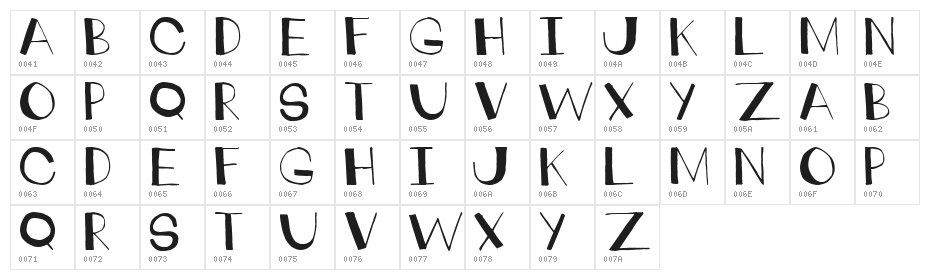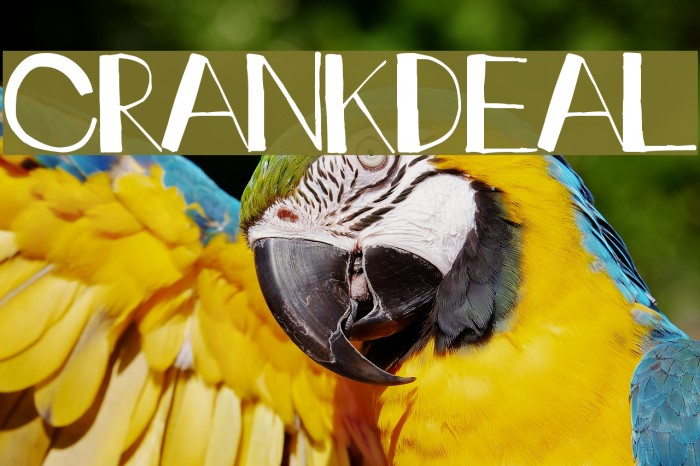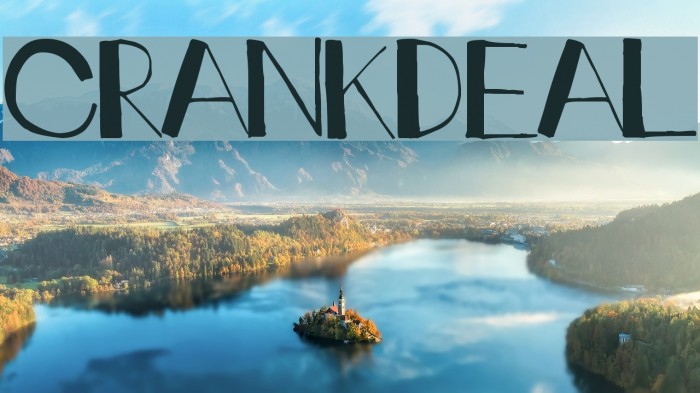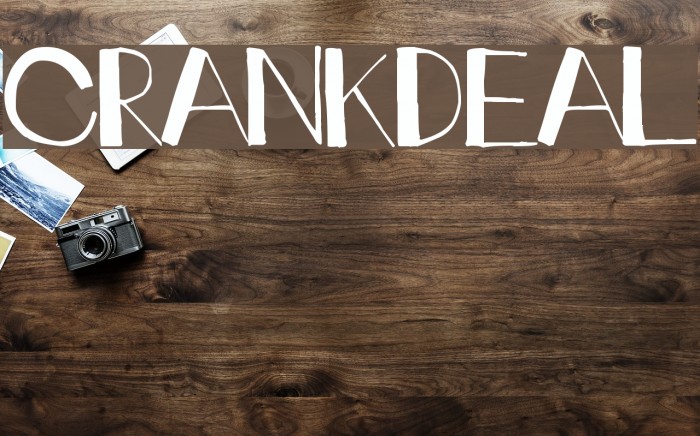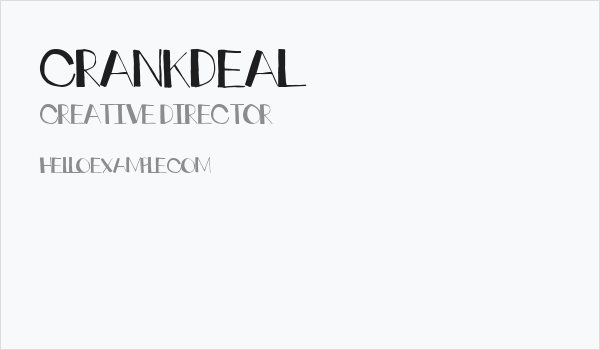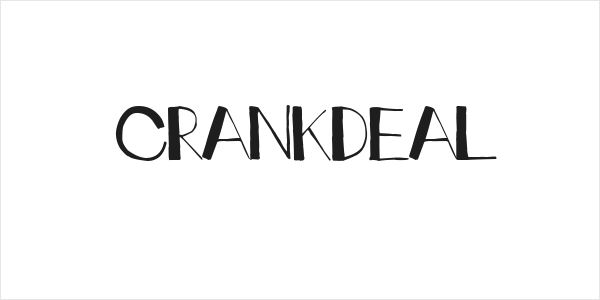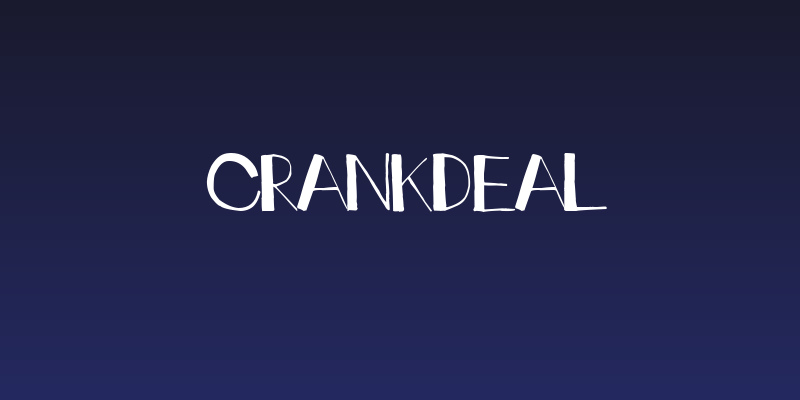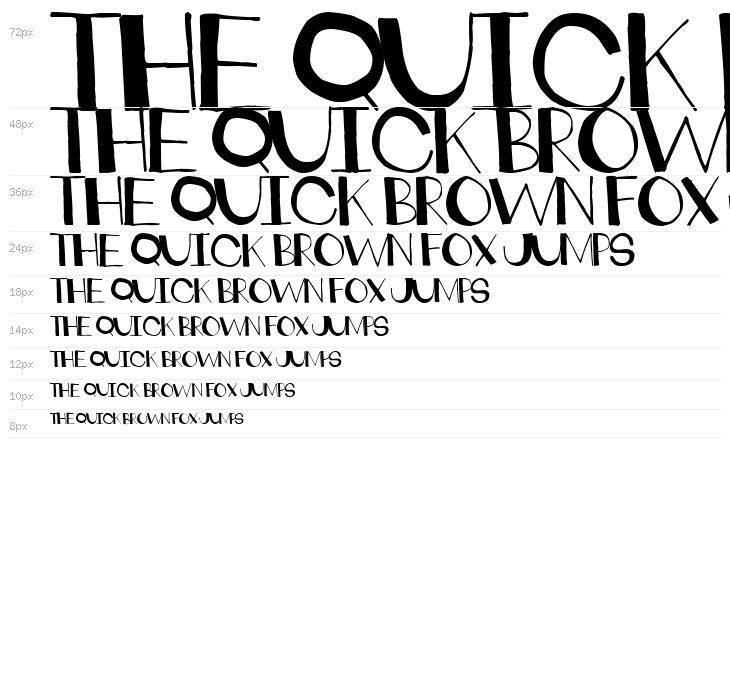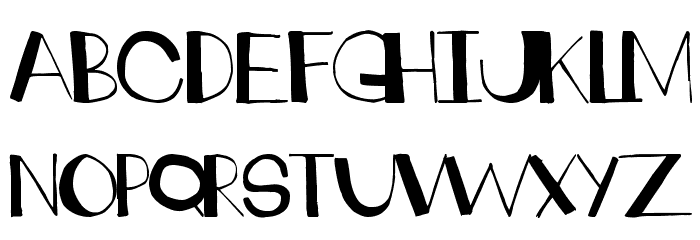
crankdeal Font
crankdeal Description
This font features a playful and quirky design with a mix of thick and thin strokes, creating a dynamic and energetic appearance. The letters are bold and slightly irregular, giving them a hand-drawn feel. The uppercase characters are particularly distinctive, with exaggerated curves and angles that add to the font's whimsical nature. The overall style is both modern and artistic, making it suitable for creative projects that require a unique and eye-catching typeface.
| Proposed Projects | Ideal for children's books, creative posters, branding for playful products, and artistic event invitations. |